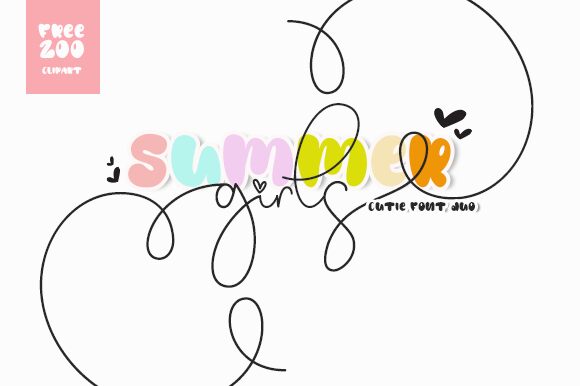
Girls Summer Bold font by Fillo Graphic is a free cartoon display font with rounded smooth letterforms. Cohesive, friendly, and approachable, Girls Summer combines a retro atmosphere with modern vibes to grab the viewer’s attention from the first glance. The typeface can surely be pulled off in titles and headings.
Use this font for magazine covers, articles, quizzes, books aimed at younger audiences (children and teens), animation movie branding, exceptional television show packages or exhibitions/fairs posters.